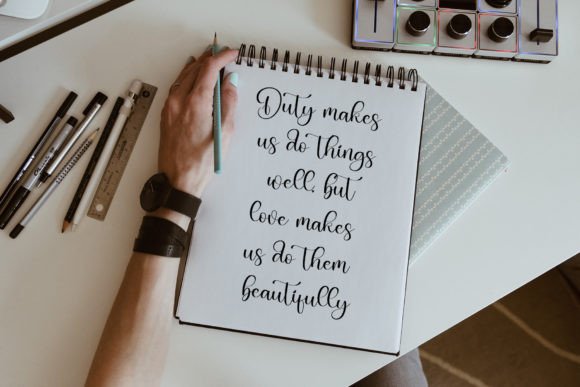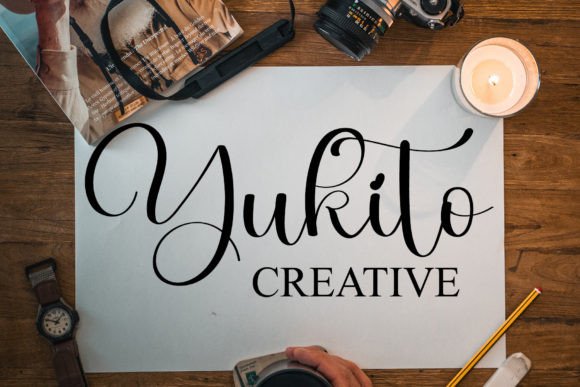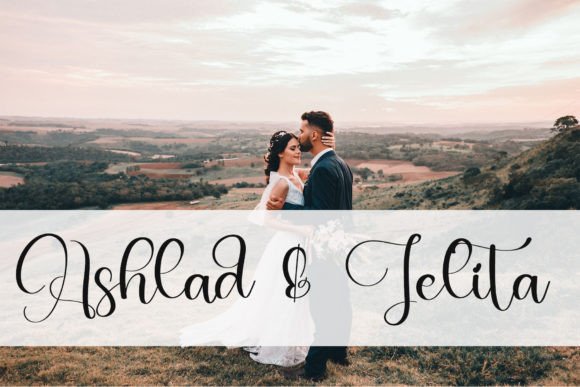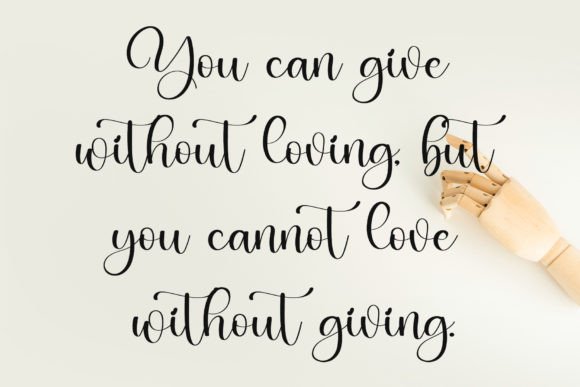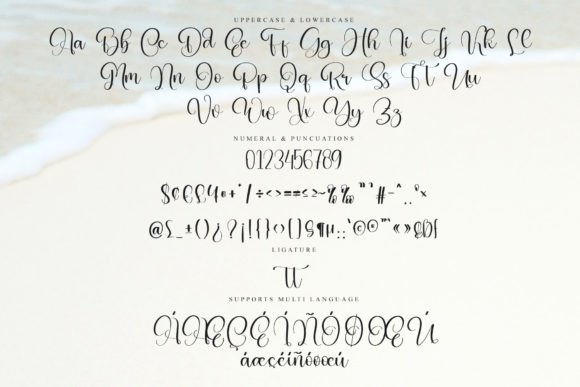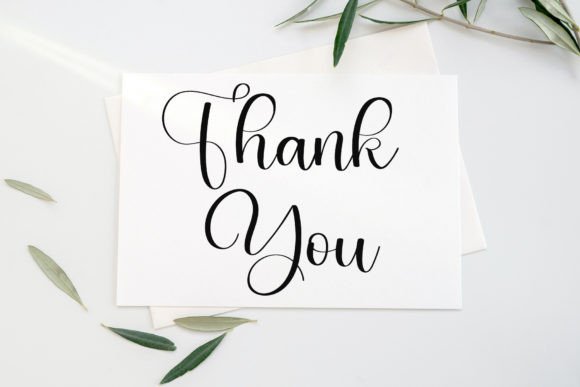
Introducing Antika Font: The Sweet and Elegant Cursive Handwritten Font
Are you looking for a font that can add a touch of elegance and romance to your designs? Look no further than Antika Font, a beautiful and sweet cursive handwritten font that is perfect for a variety of design projects. With its gentle and flowing curves, Antika Font is sure to make your designs stand out and leave a lasting impression.
What Makes Antika Font Special?
Antika Font is a unique and versatile font that can be used for a wide range of design ideas. Whether you’re creating a logo, branding materials, wedding invitations, greeting cards, or marketing promotions, Antika Font is the perfect choice. Its cursive and handwritten style gives it a personal and intimate feel, making it perfect for designs that require a touch of warmth and elegance.
One of the best things about Antika Font is its ability to convey a sense of joy and romance. Its flowing curves and sweet letterforms make it perfect for designs that require a feminine and delicate touch. Whether you’re creating a lookbook for a fashion brand or a wedding invitation, Antika Font is sure to add a touch of whimsy and charm.
Antika Font is a must-have for designers and crafters who want to add a touch of elegance and sophistication to their designs. With its versatile and flexible design, Antika Font can be used for a wide range of projects, from branding and logo design to wedding invitations and greeting cards.
Designers will love Antika Font for its ability to add a personal and intimate touch to their designs. Its cursive and handwritten style makes it perfect for creating unique and custom designs that require a human touch. Crafters will also love Antika Font for its ability to add a touch of whimsy and charm to their projects, from handmade cards to DIY crafts.
Key Features of Antika Font
So, what makes Antika Font so special? Here are some of its key features:
- Sweet and cursive handwritten style: Antika Font has a beautiful and elegant cursive handwritten style that is perfect for designs that require a touch of warmth and elegance.
- Versatile and flexible design: Antika Font can be used for a wide range of design projects, from branding and logo design to wedding invitations and greeting cards.
- Perfect for feminine and delicate designs: Antika Font’s flowing curves and sweet letterforms make it perfect for designs that require a feminine and delicate touch.
- Easy to read and use: Antika Font is easy to read and use, making it perfect for designs that require a clear and legible font.
How to Use Antika Font
Using Antika Font is easy and straightforward. Here are some tips on how to get the most out of this beautiful font:
- Use it for branding and logo design: Antika Font is perfect for creating unique and custom logos that require a touch of elegance and sophistication.
- Pair it with other fonts: Antika Font can be paired with other fonts to create a unique and interesting design. Try pairing it with a bold sans-serif font for a striking contrast.
- Use it for wedding invitations and greeting cards: Antika Font is perfect for creating beautiful and elegant wedding invitations and greeting cards that require a touch of romance and whimsy.
- Experiment with different colors and textures: Antika Font can be used with a variety of colors and textures to create a unique and interesting design. Try experimenting with different colors and textures to find the perfect combination.
In conclusion, Antika Font is a beautiful and sweet cursive handwritten font that is perfect for designers and crafters who want to add a touch of elegance and sophistication to their designs. With its versatile and flexible design, Antika Font can be used for a wide range of projects, from branding and logo design to wedding invitations and greeting cards. Its cursive and handwritten style gives it a personal and intimate feel, making it perfect for designs that require a touch of warmth and elegance.
So, if you’re looking for a font that can add a touch of joy and romance to your designs, look no further than Antika Font. With its beautiful and elegant design, Antika Font is sure to make your designs stand out and leave a lasting impression.